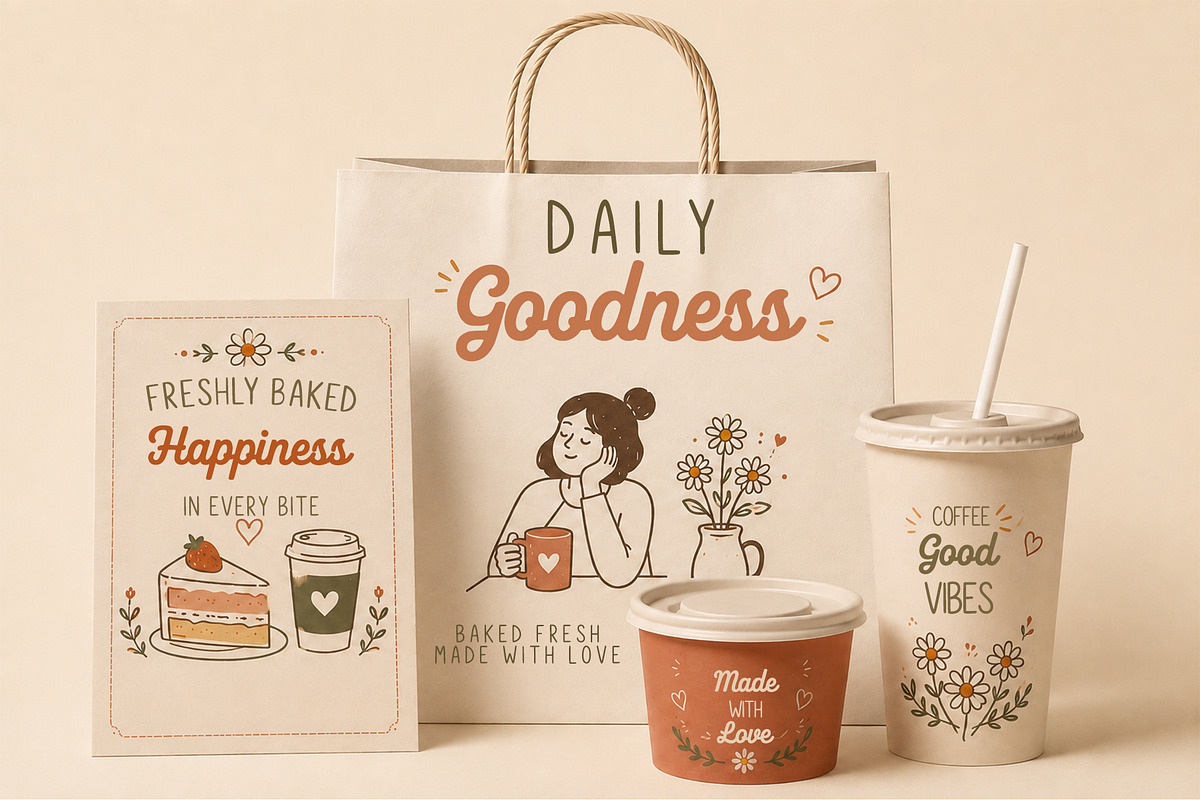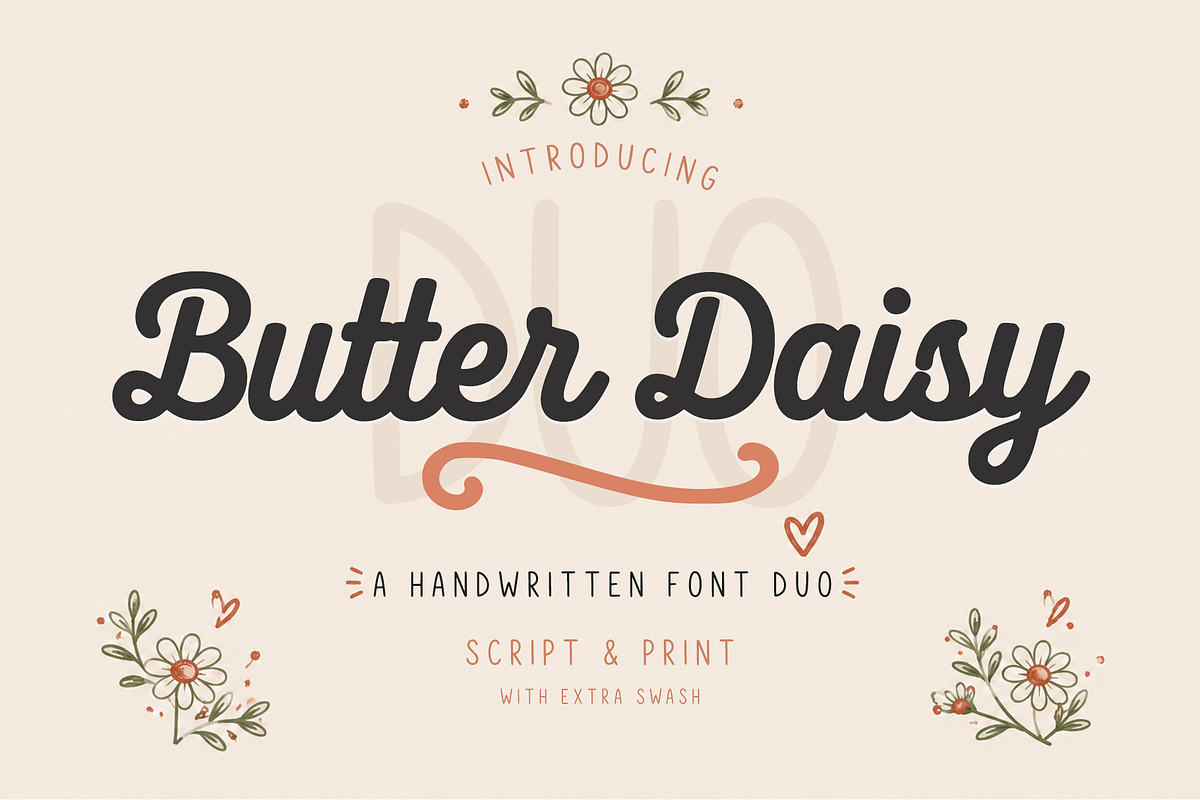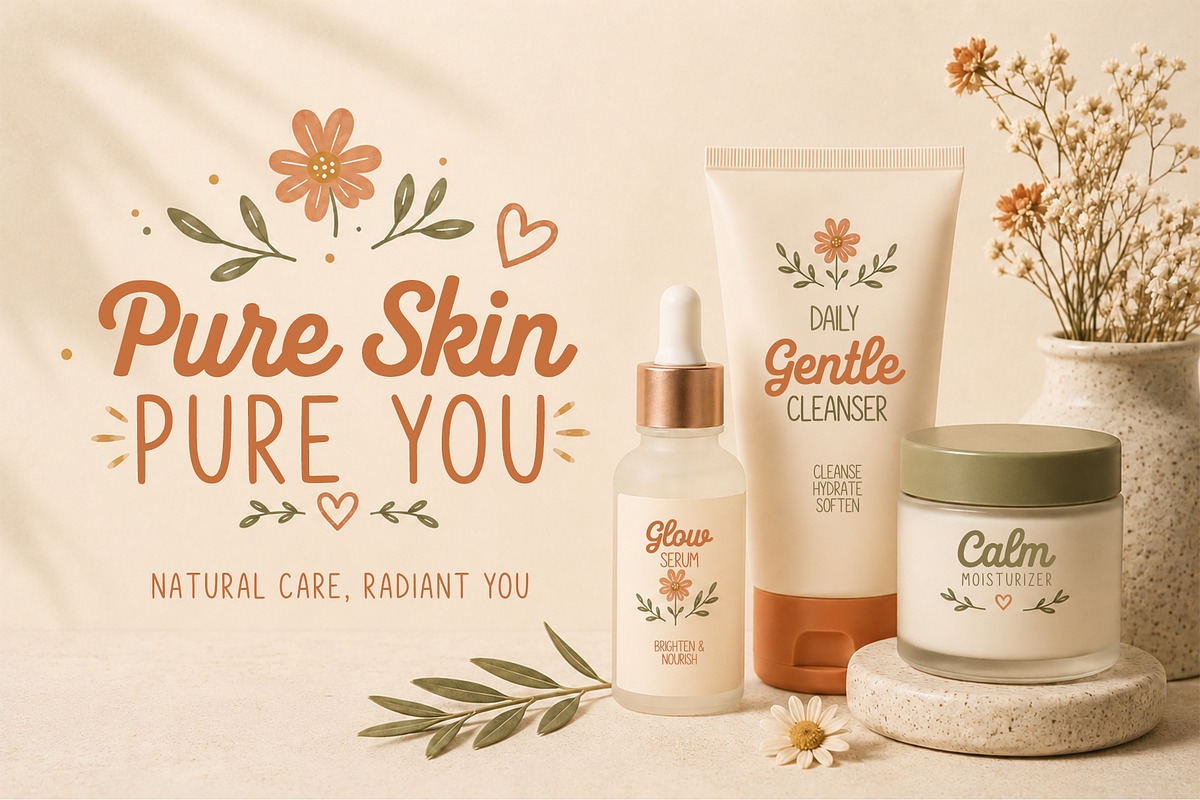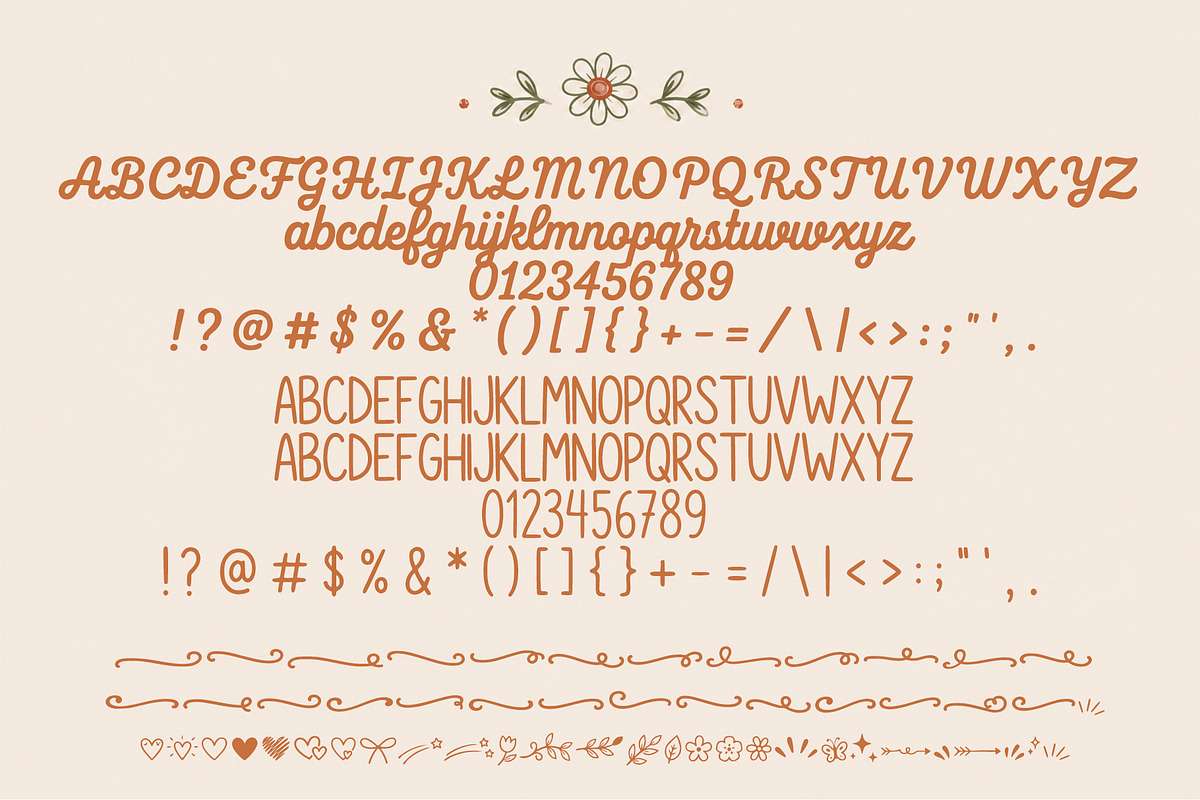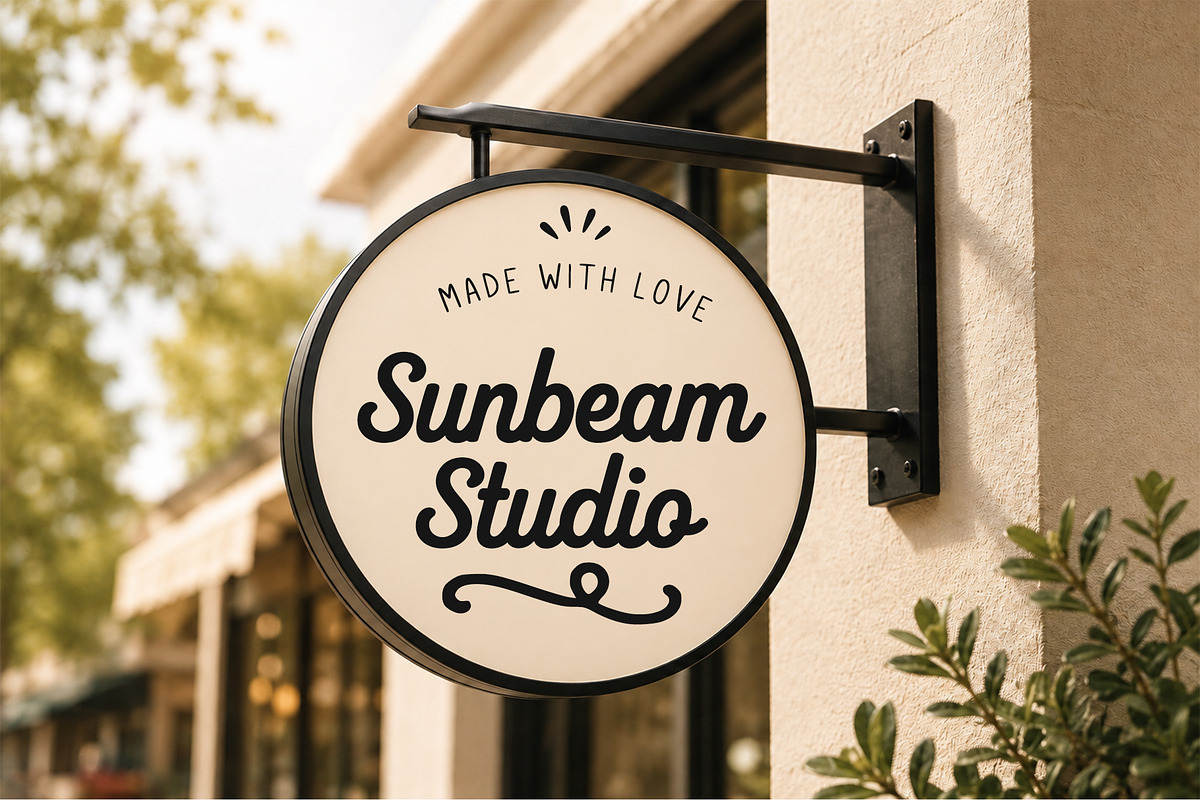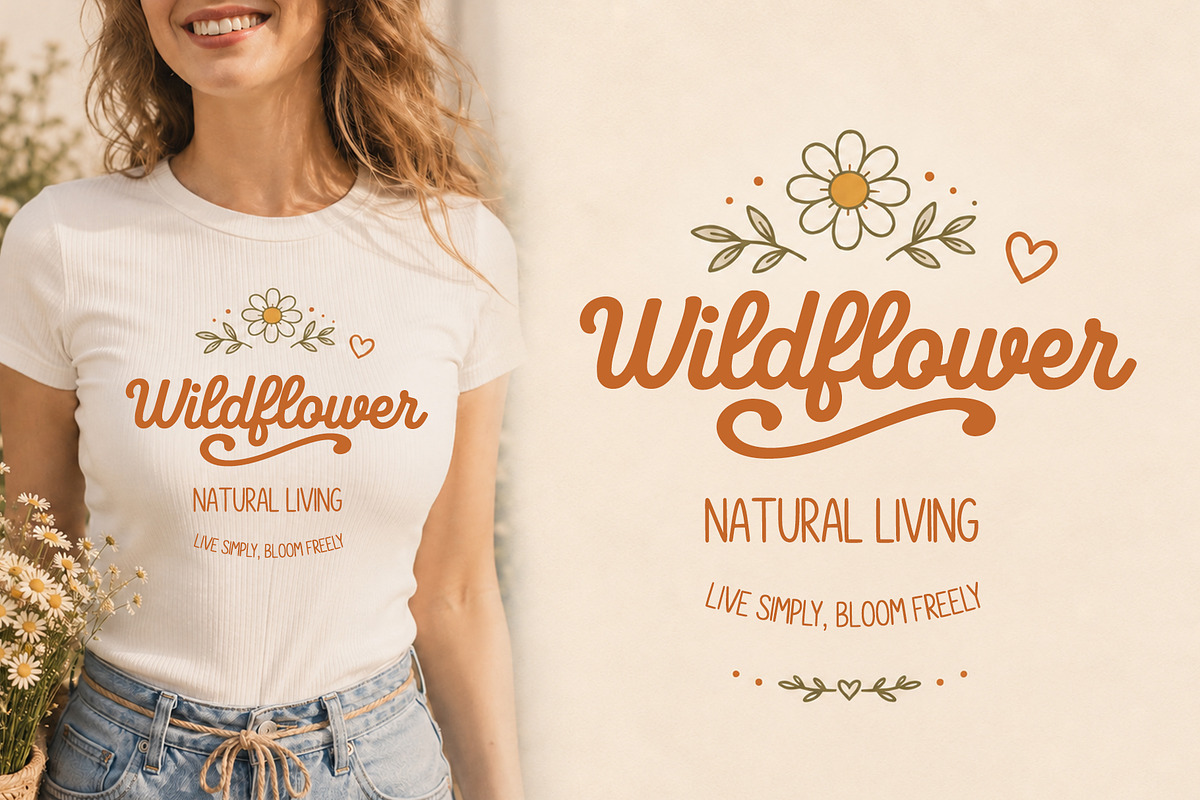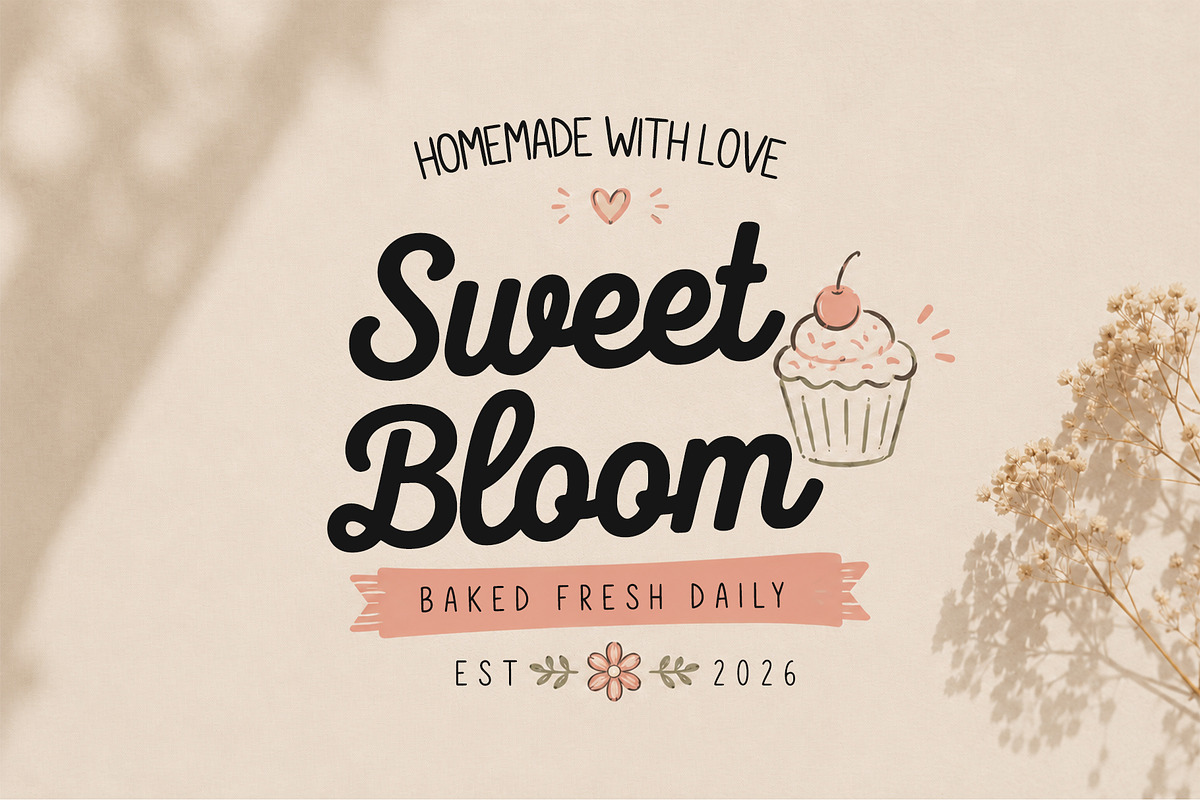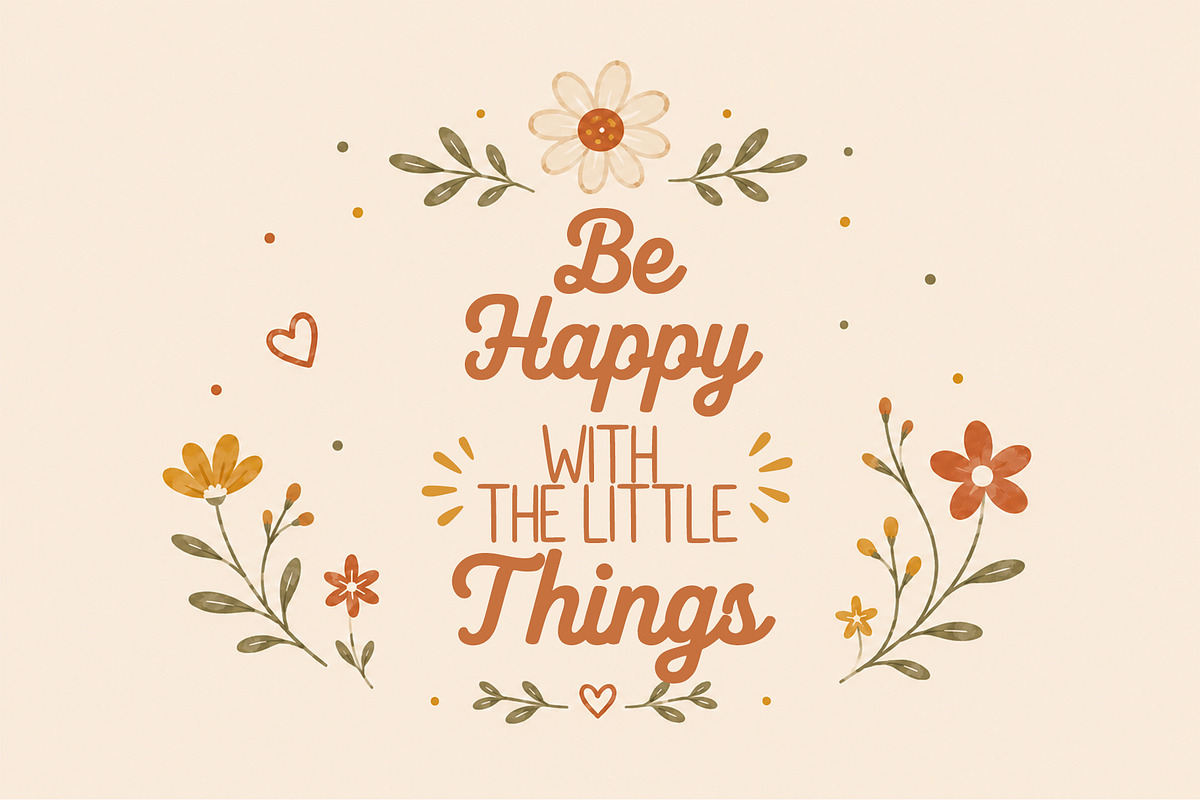
Butter Daisy font duo
Butter Daisy is a charming handwritten font duo that combines a smooth script with a playful handwritten print. Designed with a warm, friendly, and natural feel, this versatile pairing brings effortless personality to any creative project. The flowing script adds elegance, while the clean print font provides balance and readability, making them perfect to use together or separately.
Complete with beautiful swashes, Butter Daisy offers extra flexibility for creating eye-catching typography with a handcrafted touch. Whether used for branding, packaging, social media, or invitations, this font duo delivers a fresh and modern handwritten style that feels authentic and timeless.